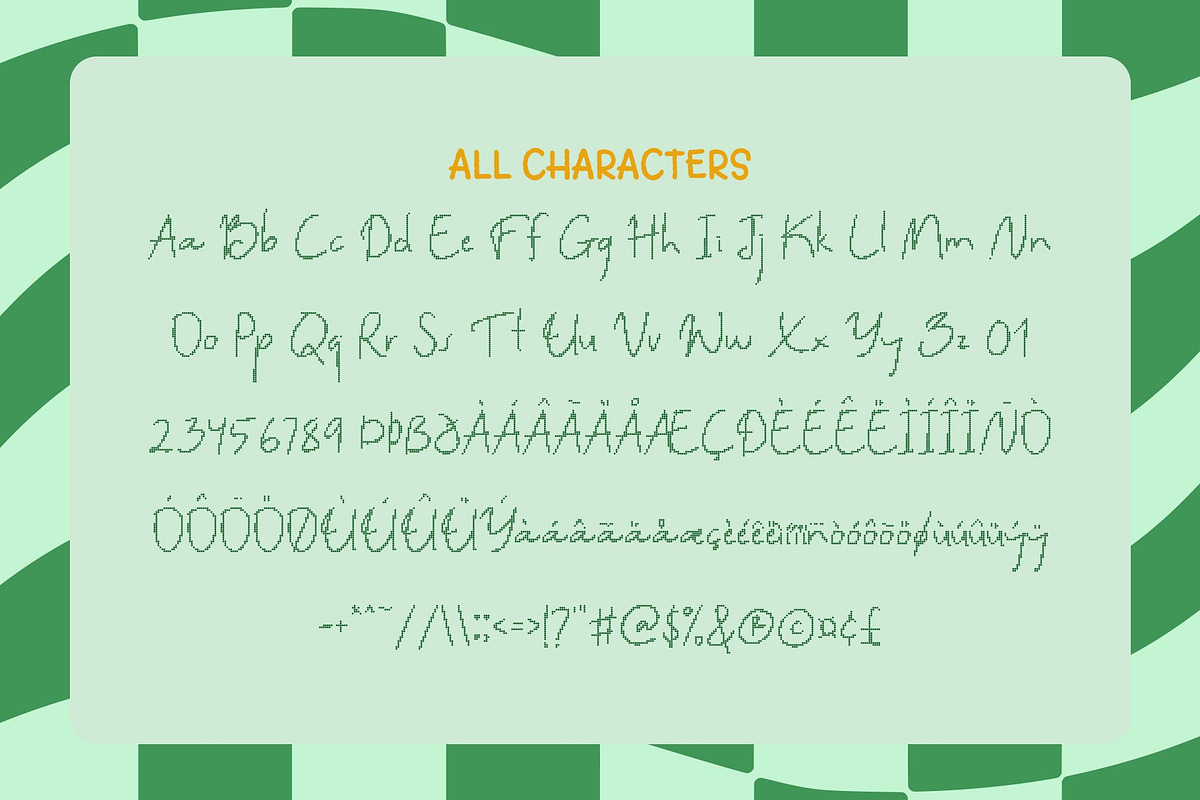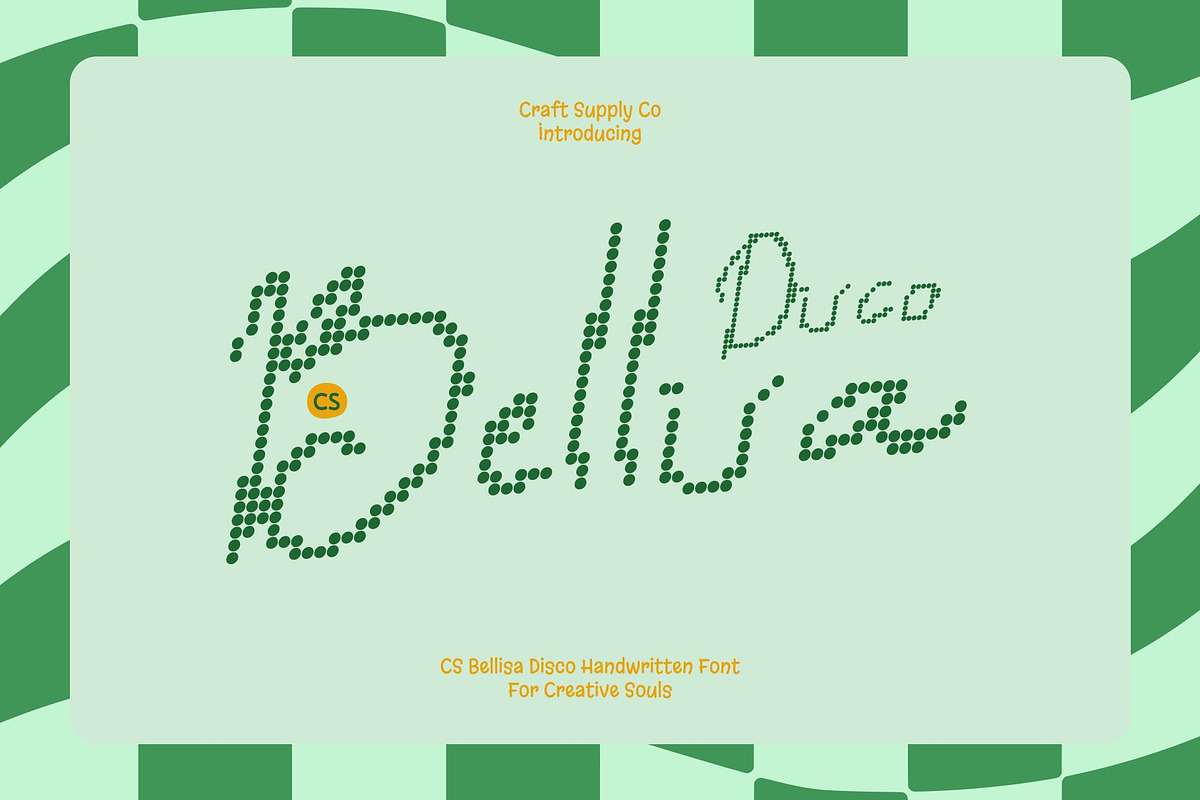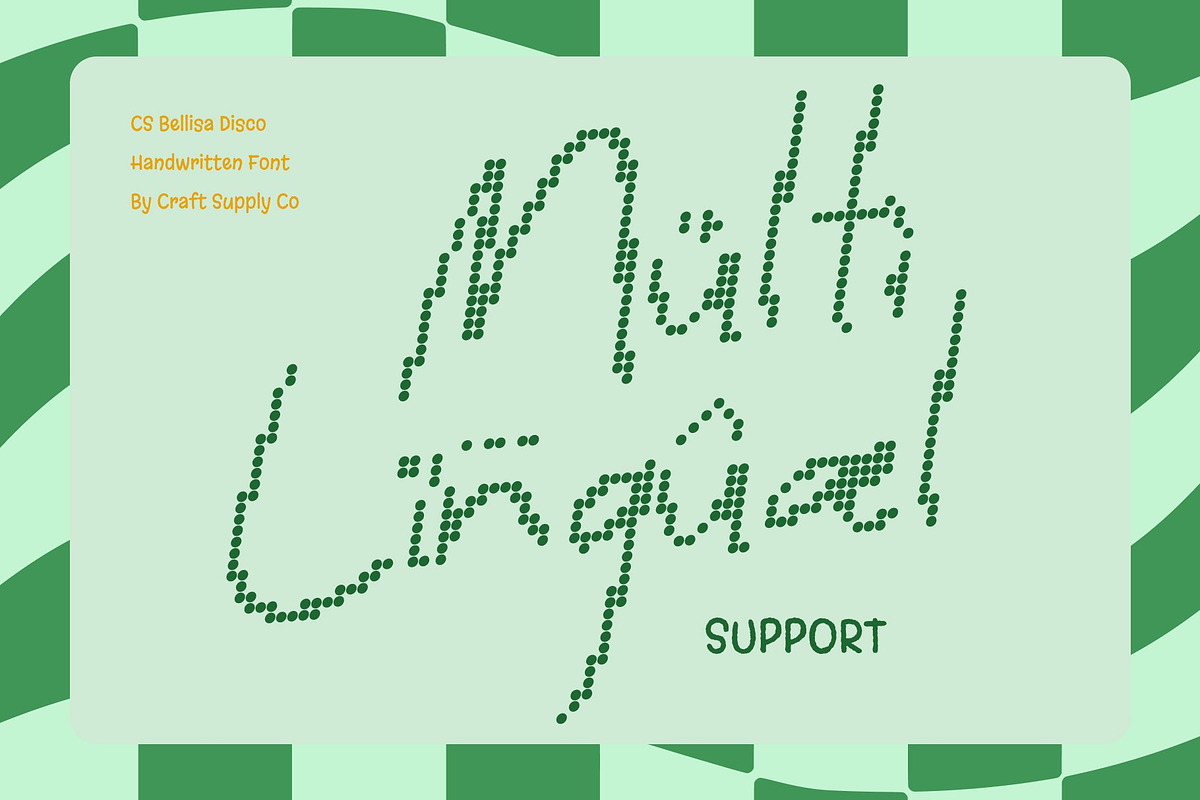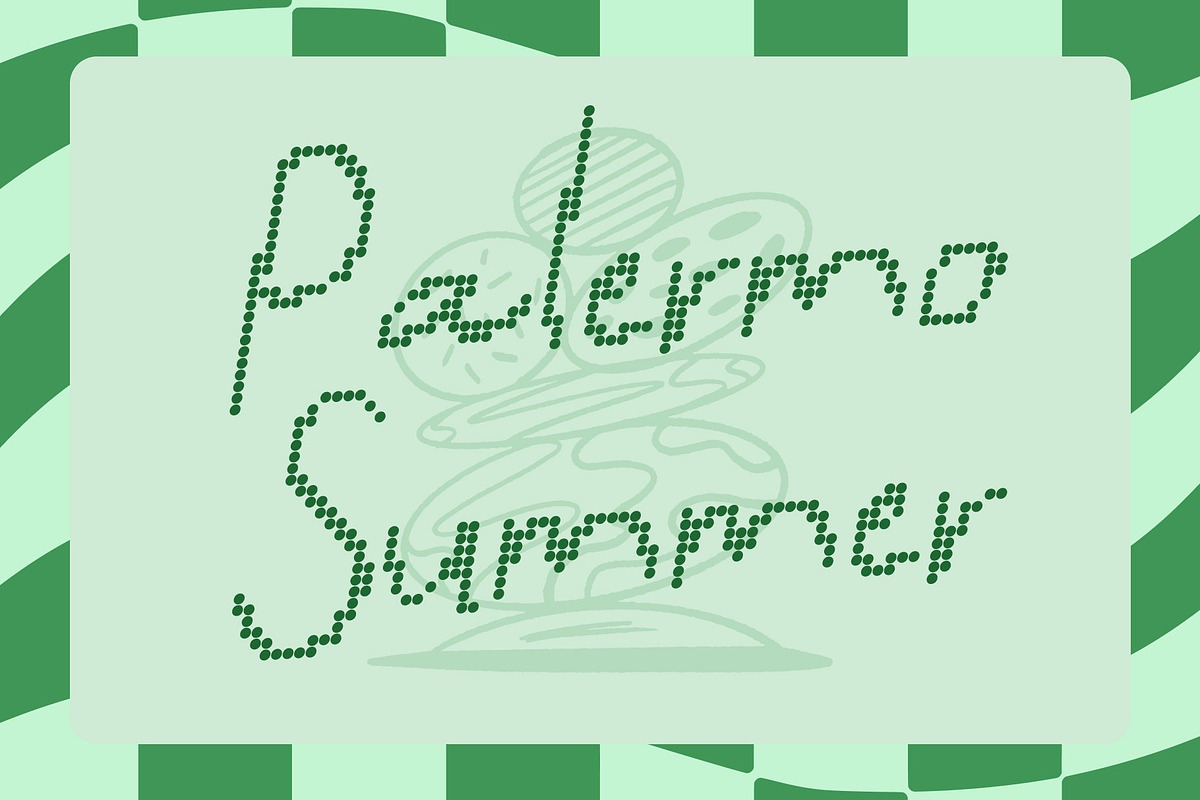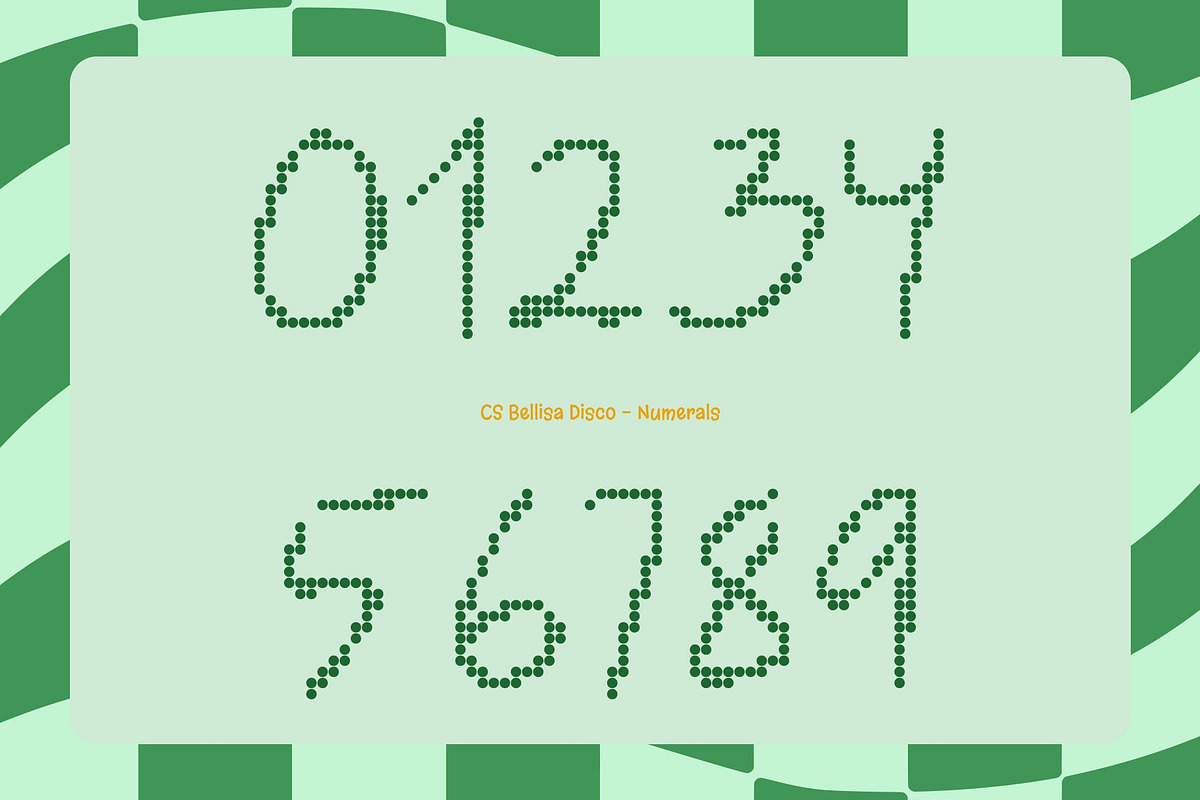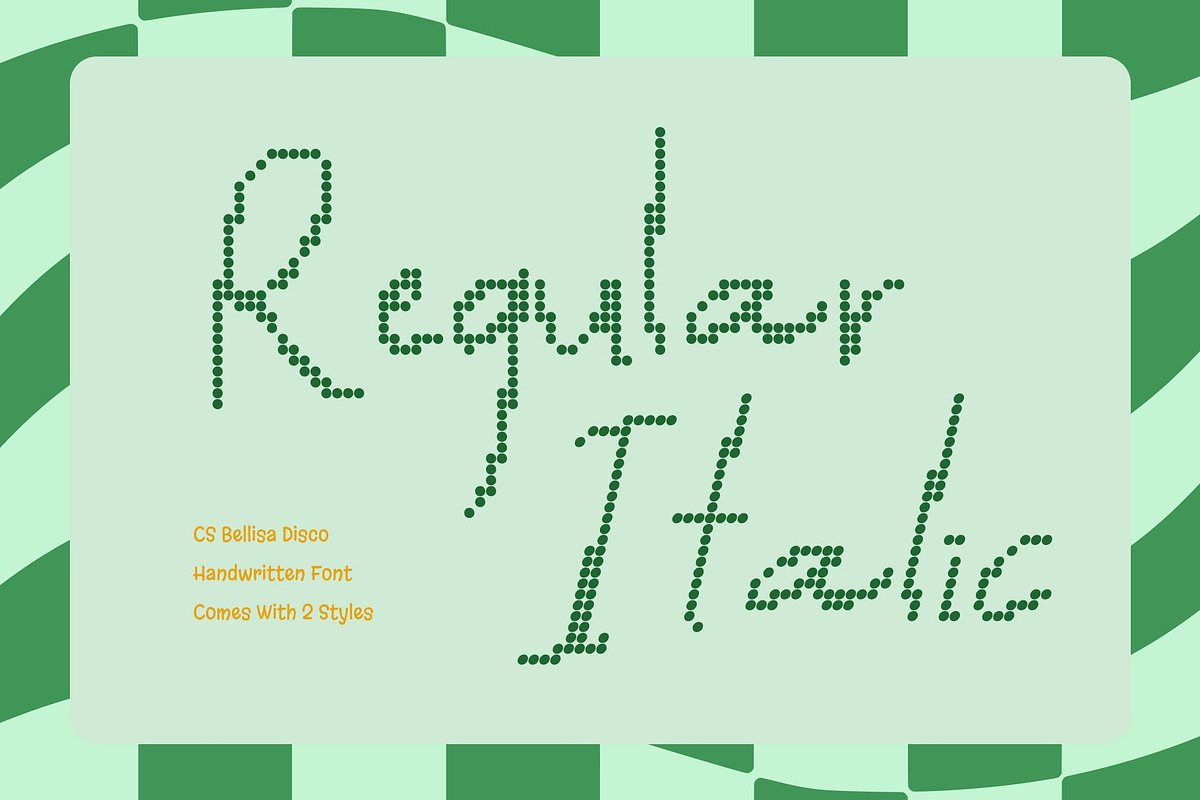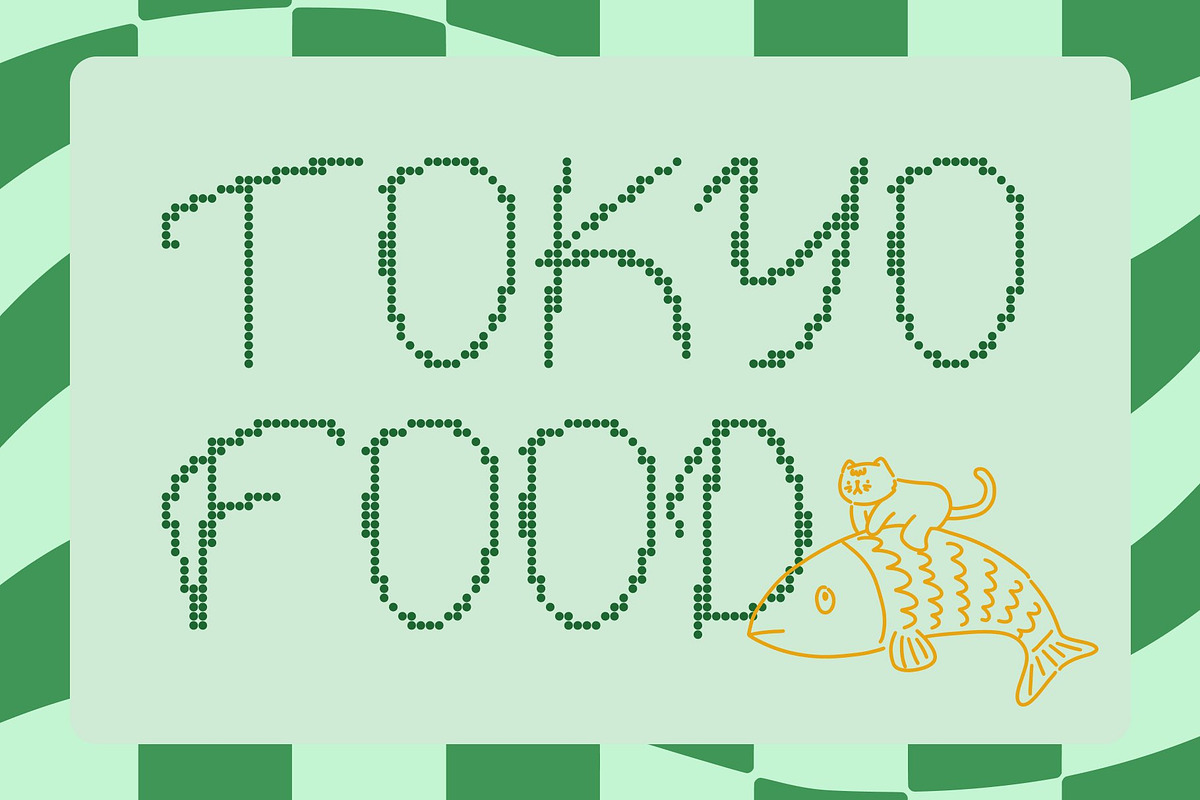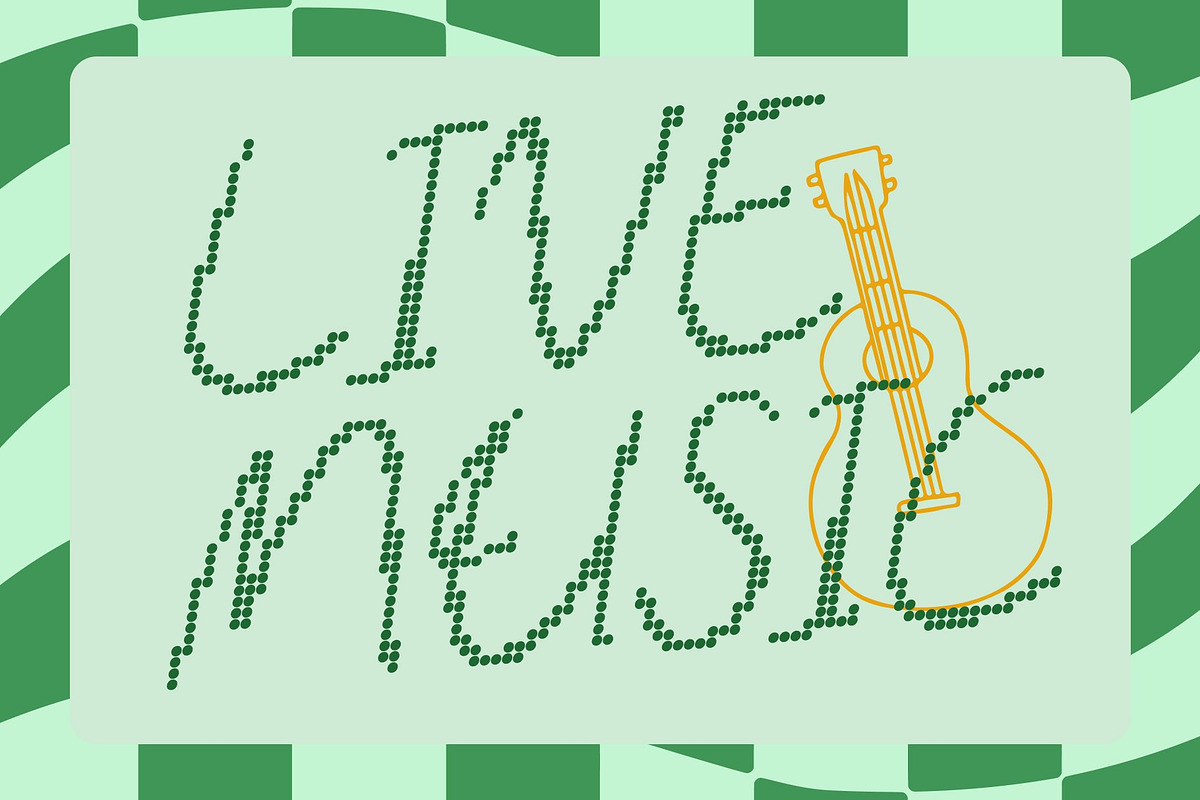
CS Bellisa Disco
CS Bellisa Disco – Casual Charm with a Personal Touch
Expressive Handwritten Style with Disco Warmth This is a friendly handwritten font that blends sans serif clarity with effortless charm and a subtle disco-inspired liveliness. Each stroke flows naturally, creating text that feels warm, genuine, and full of personality. Its expressive rhythm adds movement and brightness, making every word feel alive and emotionally engaging.
Handcrafted Details for Authentic Expression Every curve and line reflects the beauty of true handwriting. Organic forms and delicate imperfections give this font authenticity and individuality, allowing designs to feel personal rather than mechanical. Whether used for quotes, branding, or social media visuals, it communicates sincerity with stylish confidence.
Casual Flow with Modern Versatility With its relaxed, free-flowing structure, balances professionalism and playfulness. It adapts seamlessly across creative directions from fun editorial layouts to modern advertising adding warmth without compromising clarity. The casual tone keeps it approachable while maintaining a polished and contemporary presence.
Perfect for Branding and Creative Storytelling This font shines in branding, posters, packaging, invitations, and digital content where personality matters. Its cheerful handwritten charm helps brands connect with audiences in a relatable and memorable way. With this font, typography feels inviting, expressive, and full of vibrant character.